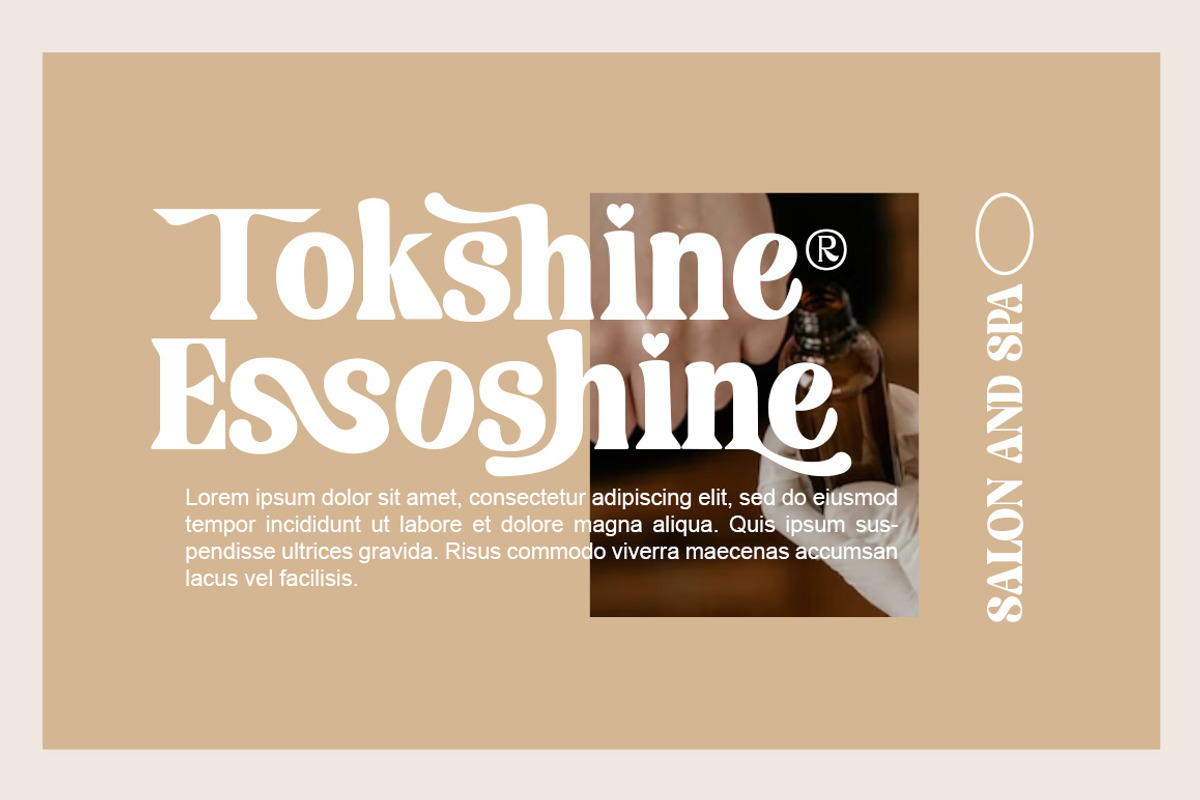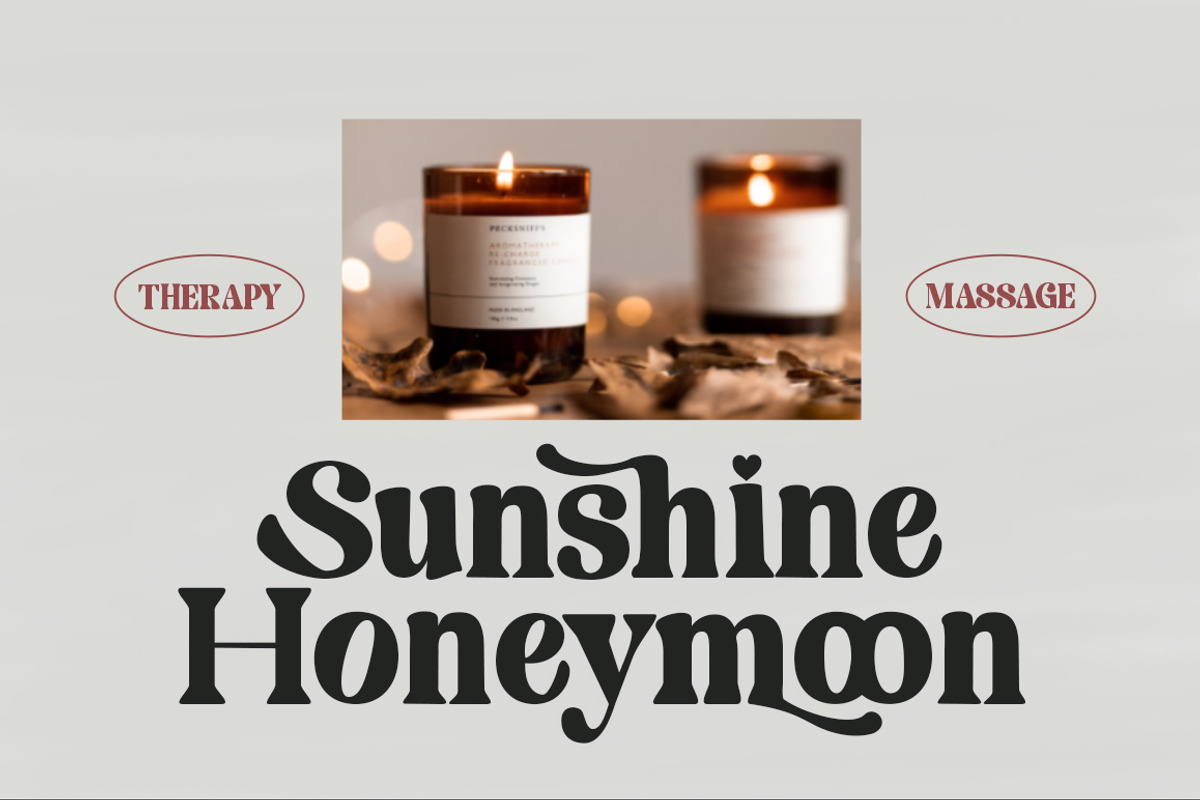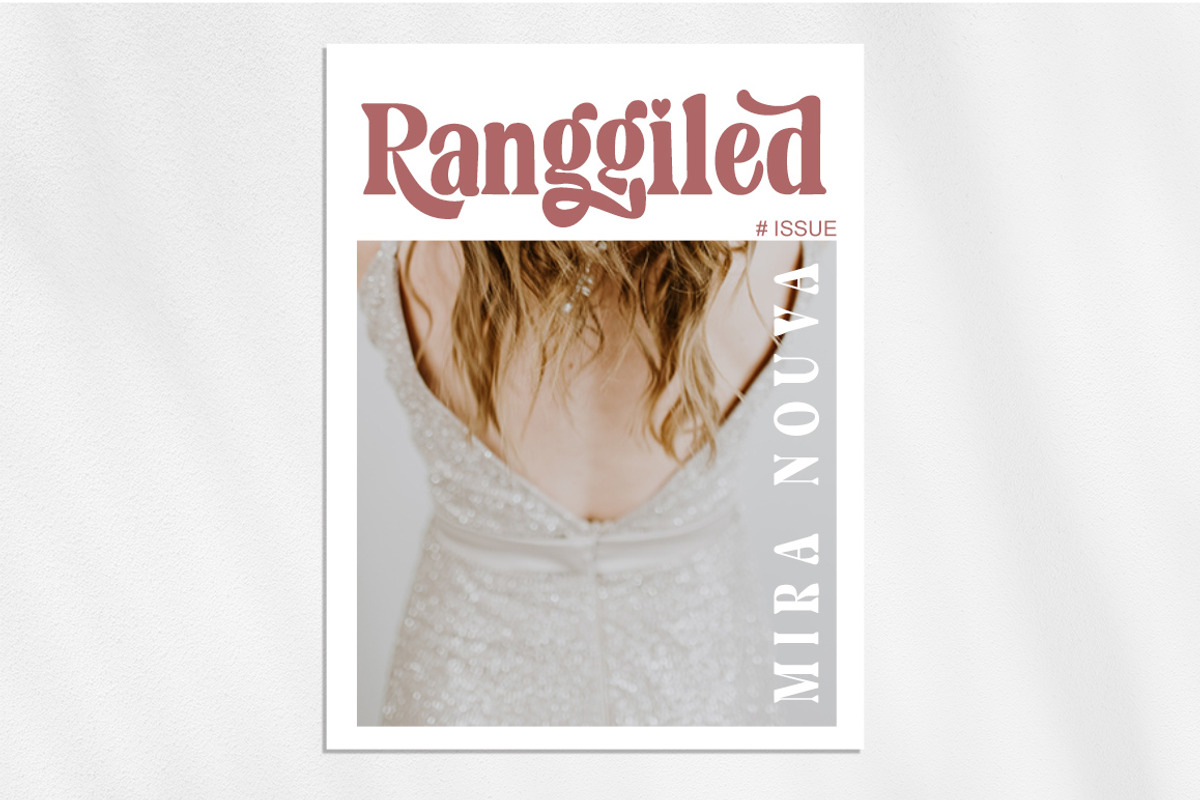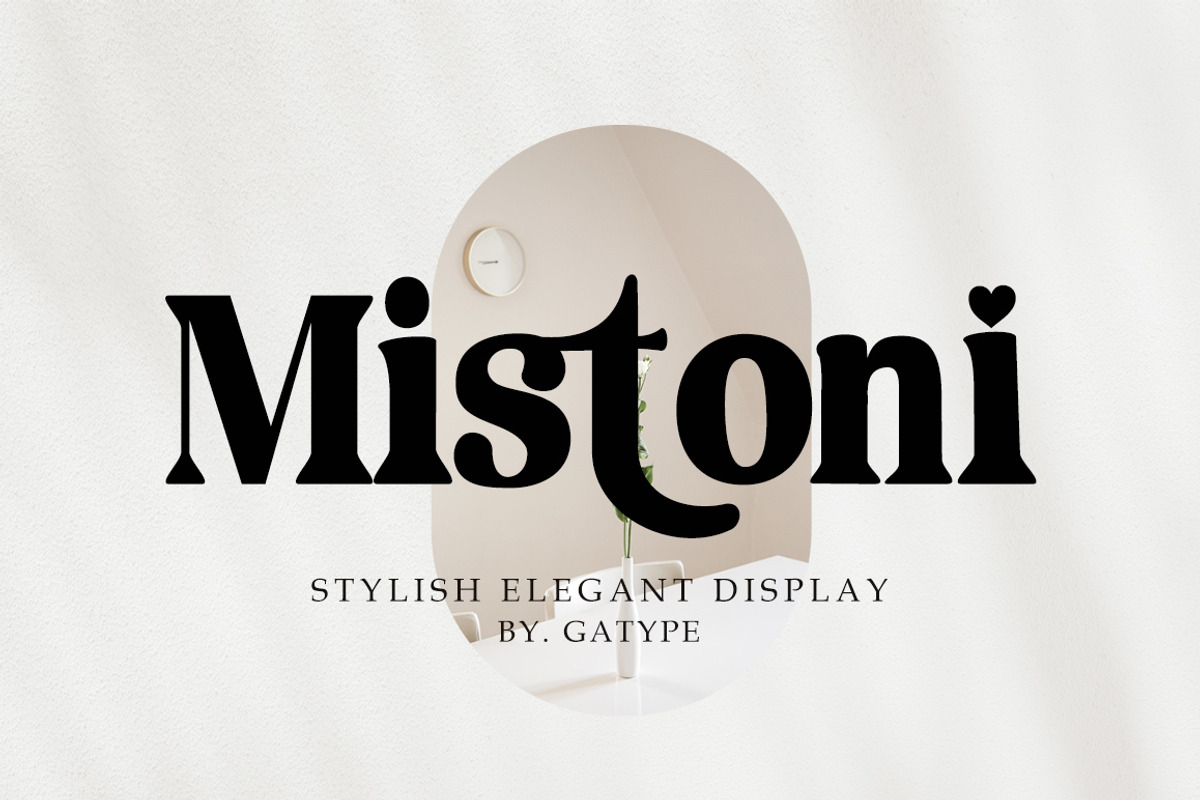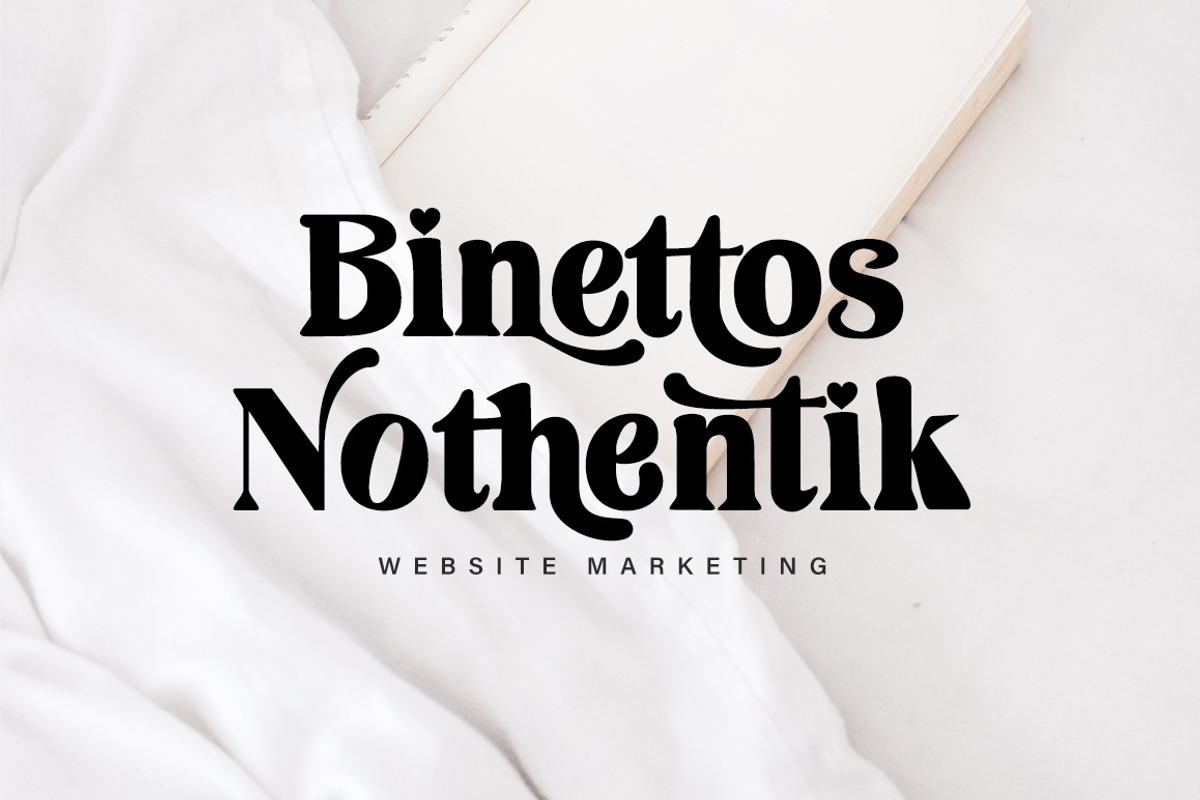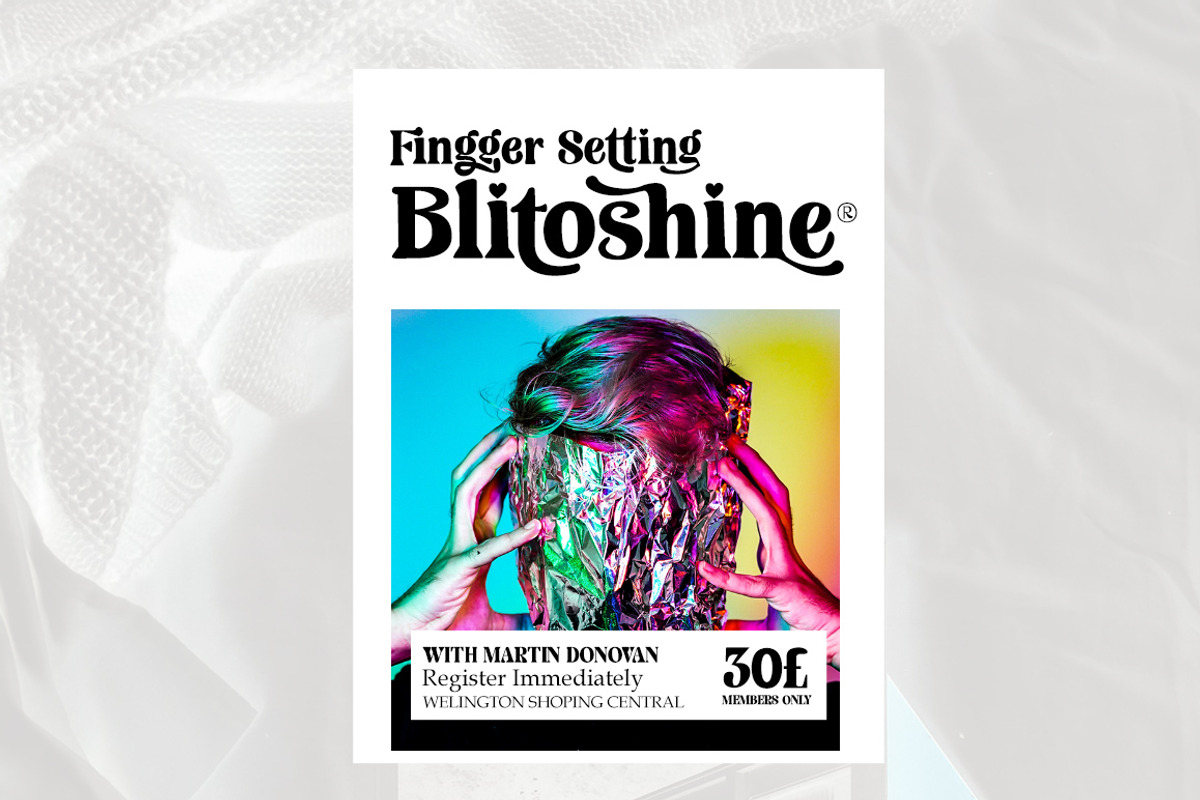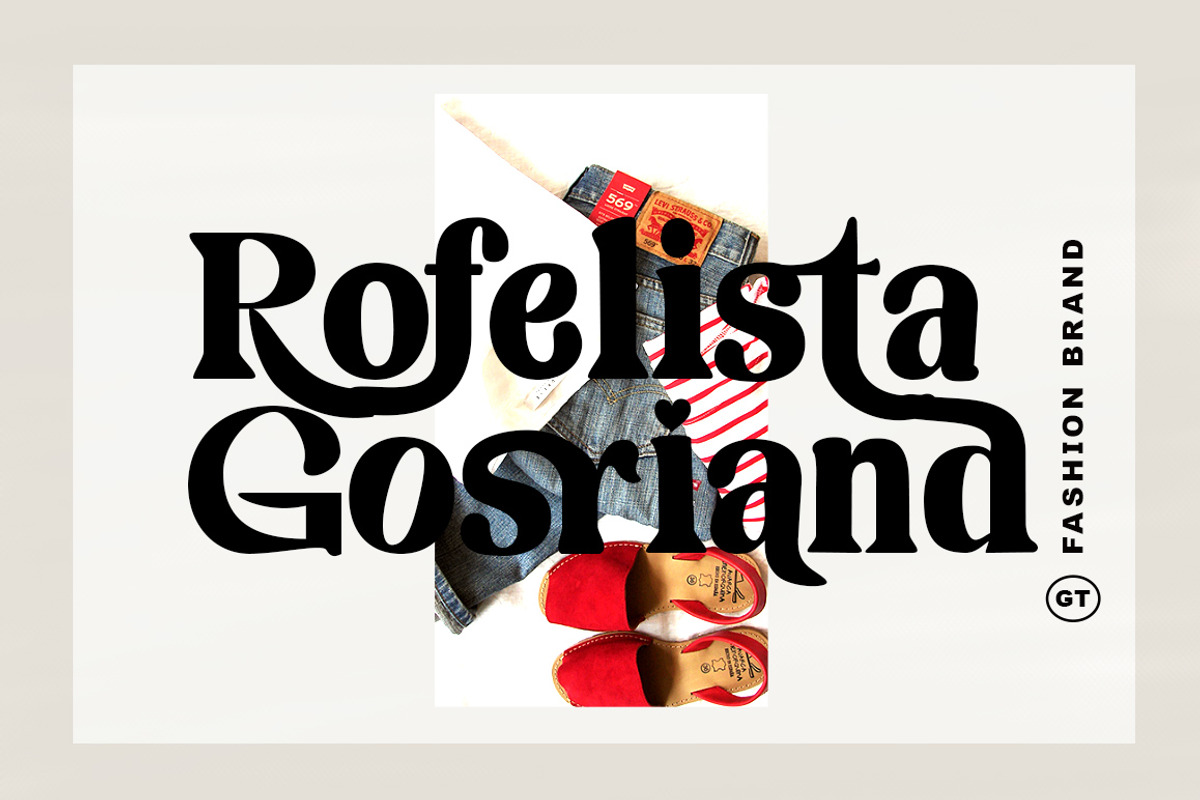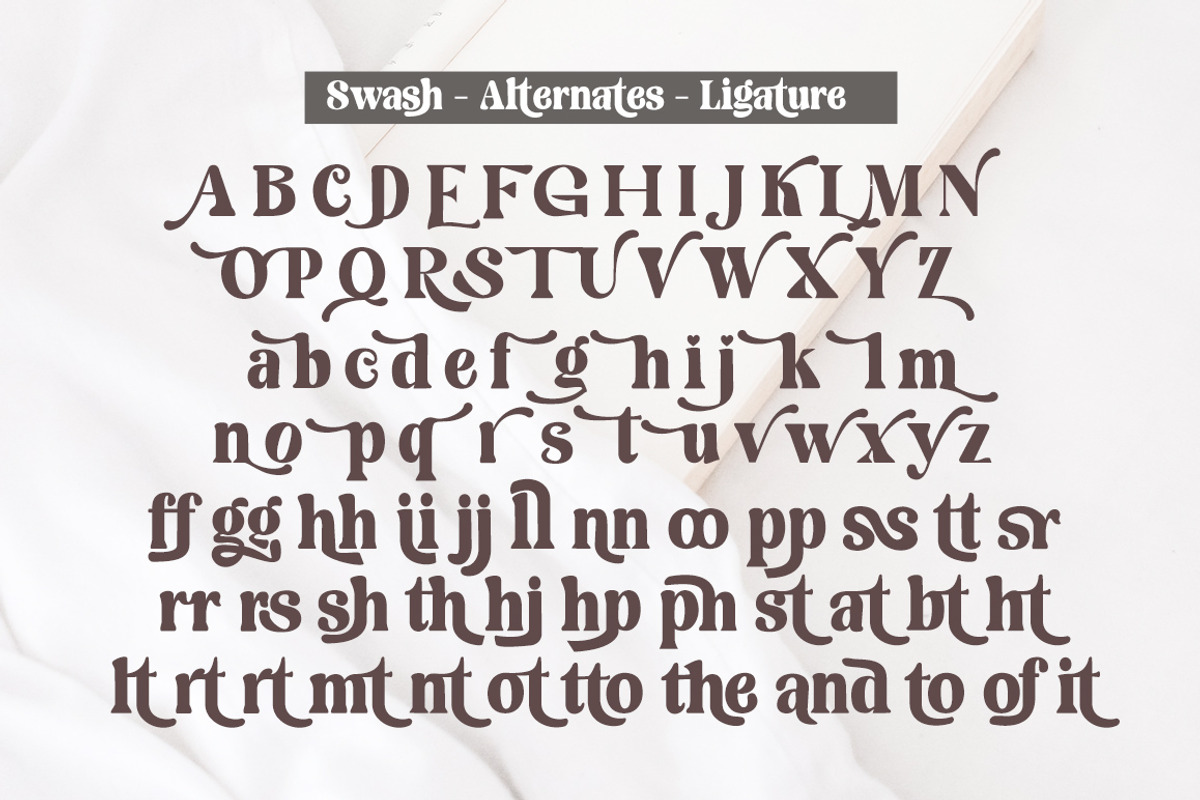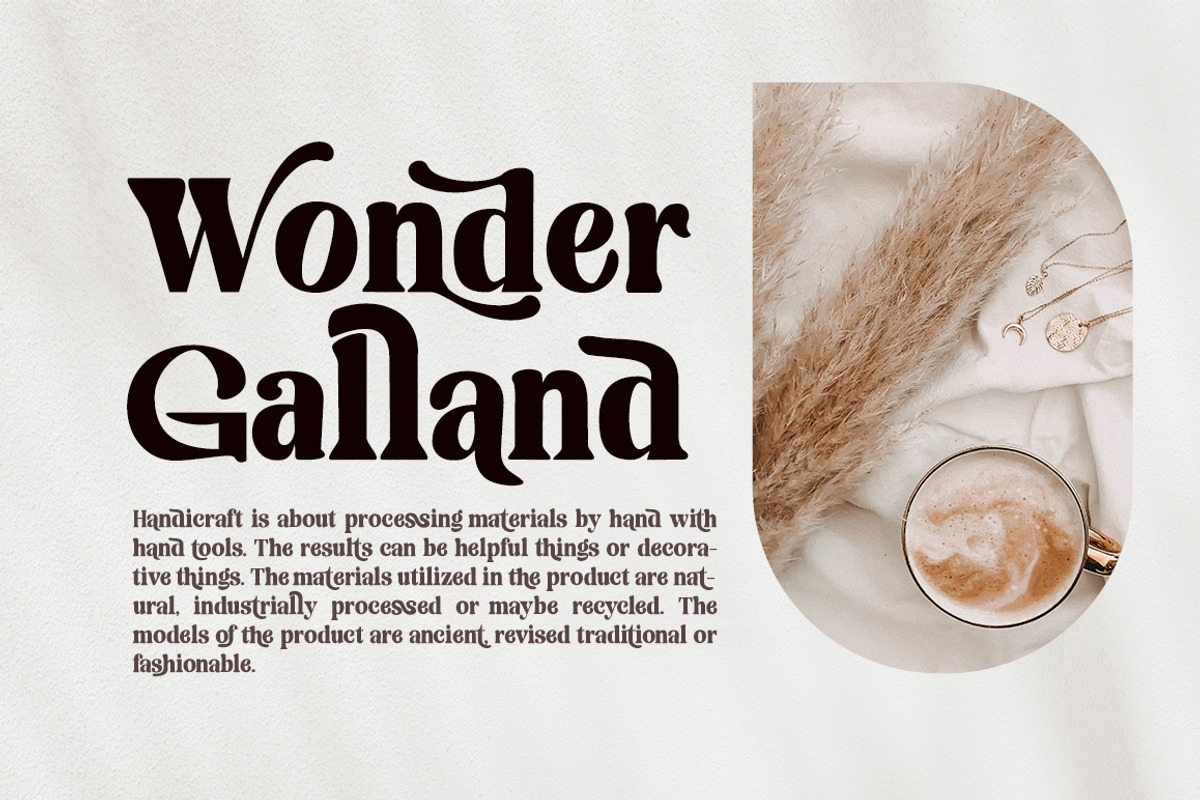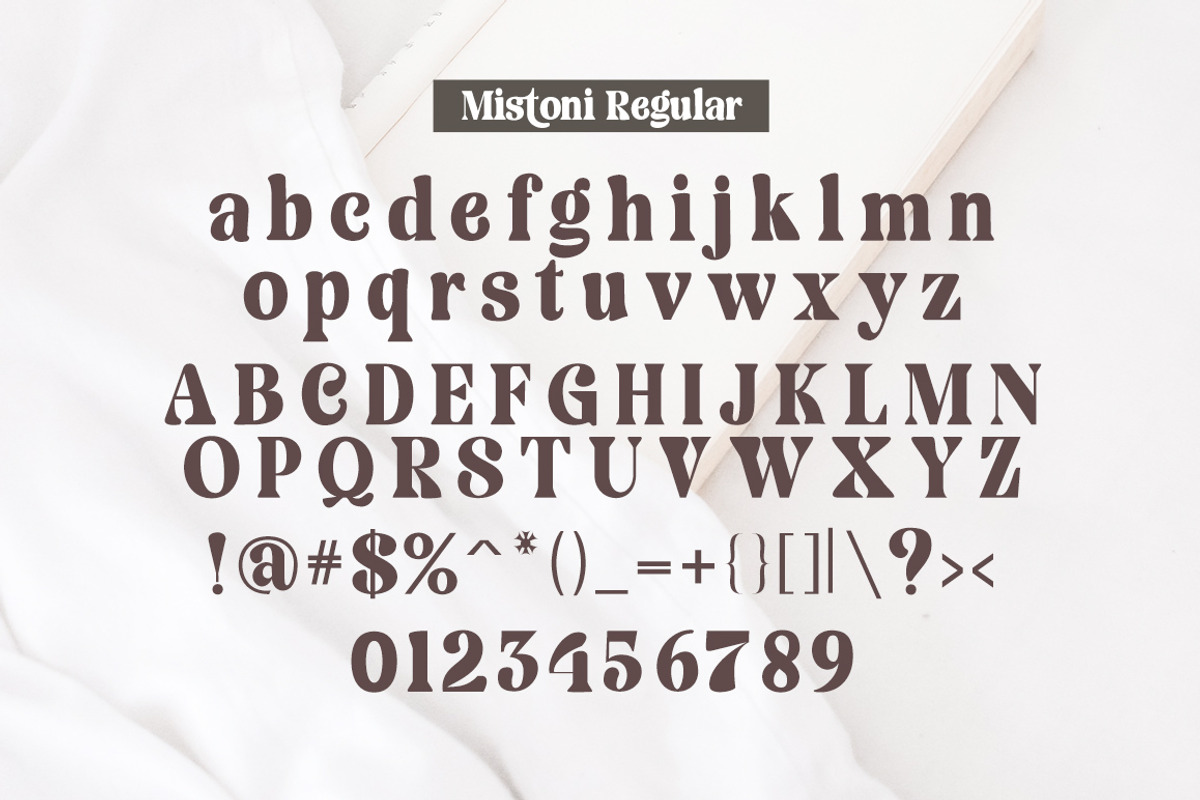
Mistoni
Mistoni An elegant font designed when in a creative mood and perfect shape, inspired by the bold, natural look of serifs so beautiful for today's fashion. bold, balanced and varied, born for luxury and beauty. including uppercase letters, numbers, and various kinds of punctuation Mistoni is perfect for invitations, logos & branding, photography, advertising, watermarks, social media posts, product packaging, product designs, labels, wedding designs, stationery, special events or anything else needed to create a theme.
Mistoni is built with OpenType features and includes initial and ending language styles, alternative characters for most lowercase letters, numbers, punctuation, alternatives, endings, and also supports other languages.